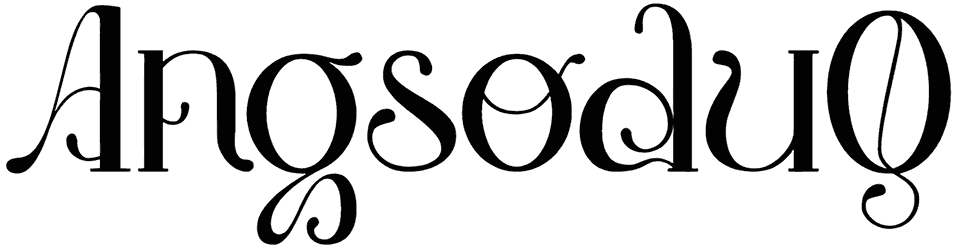
Angsoduo MT Font
Angsoduo MT is a formal serif font that comes with delicate, timeless, and rounded characters, thus leading to a vibe of professionalism, respect, confidence, or trustworthiness.